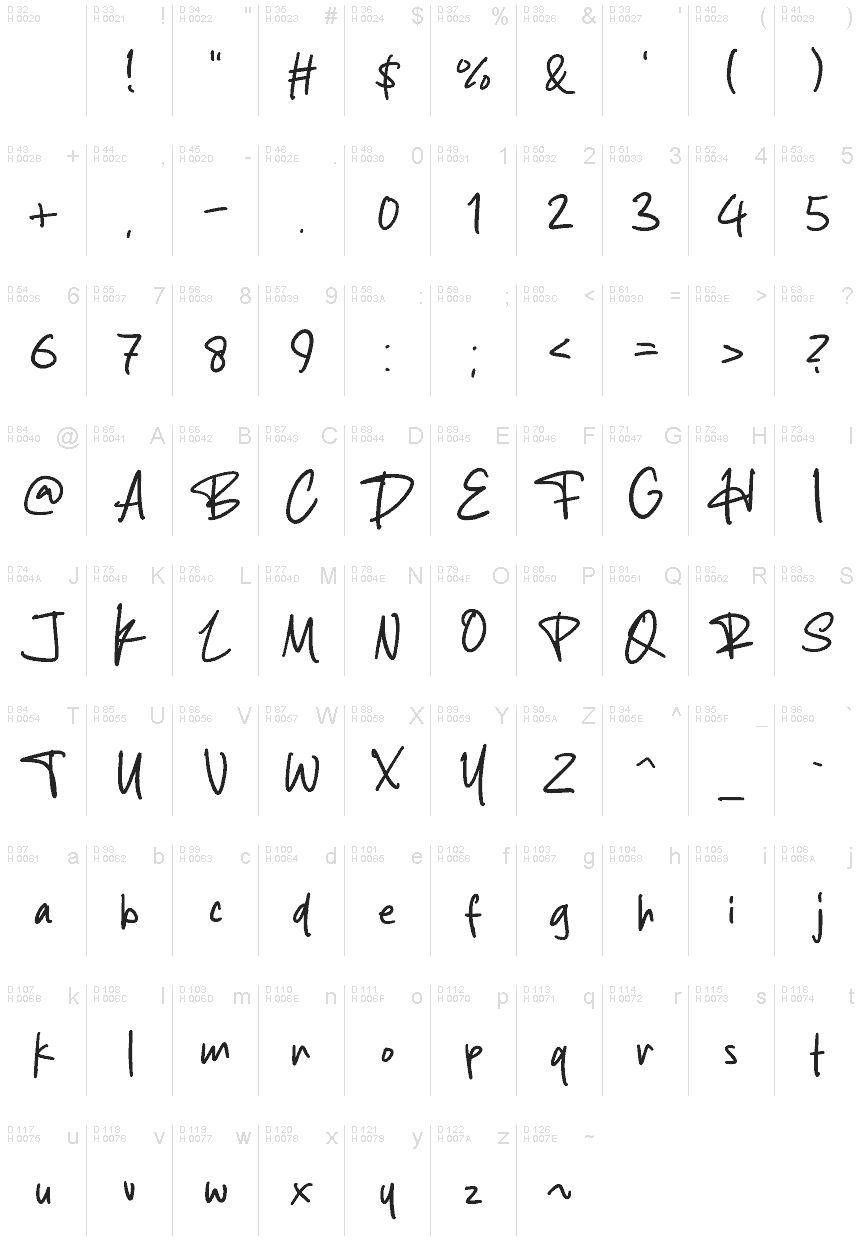
Mister Bugadi
Mister Bugadi font by MJType infuses elegance with a casual charm in this free handwritten font. The smooth flow and modern appeal offer a signature style feel to this exquisite style as it mixes and matches effortlessly with each new use. Simply type in your texts to see how they transform into loftier, more beautiful forms.
Packaging designs, invitations, thank-you cards, branding projects, logos, posters for events or shows, motivational social media posts or blogs; if you can think of it you can create with Mister Bugadi. Collect your ideas and use them for personal or client projects!